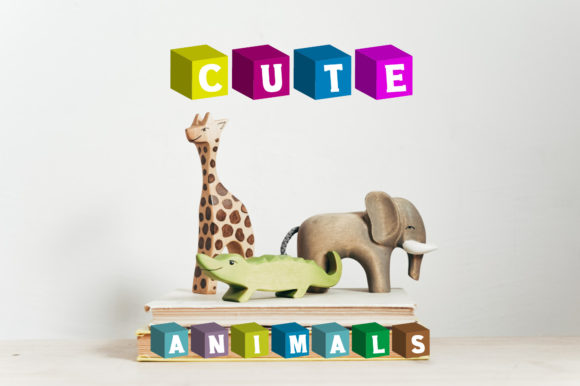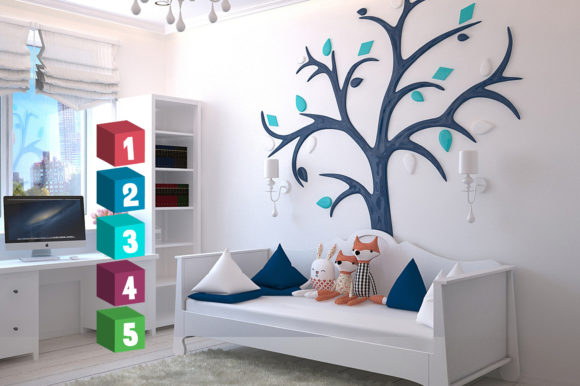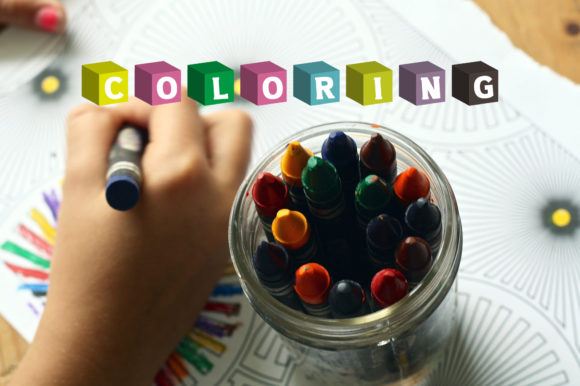
About Color Cubes Font
Introducing Color Cubes, a playful and vibrant color font that is sure to bring joy and excitement to any children’s or school project. With its cartoon-like design and vibrant colors, Color Cubes will elevate your designs and create a fun and engaging atmosphere.
Color Cubes is the perfect choice for various projects, including educational materials, children’s books, posters, presentations, and any creative work targeted towards kids. Its cheerful and animated characters will capture the attention of young audiences and make learning and exploring even more enjoyable.
Let Color Cubes be your companion in creating captivating and engaging designs for children. Spark their imagination, encourage their creativity, and make learning a fun-filled adventure. With Color Cubes, every project becomes a colorful and joyful experience.